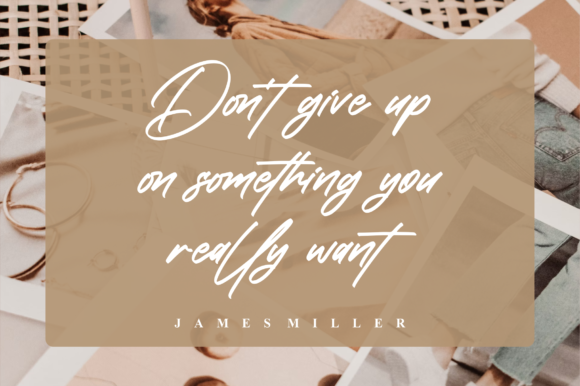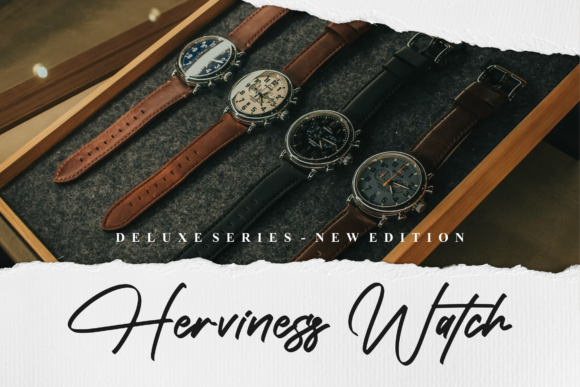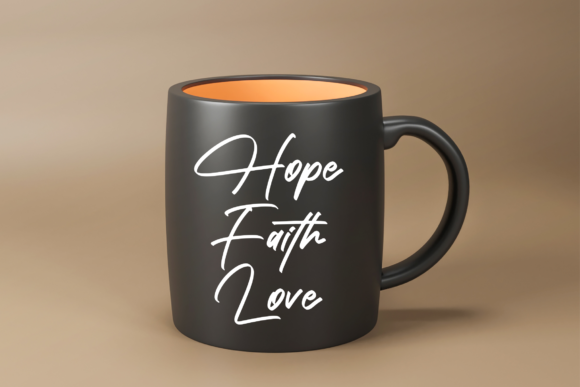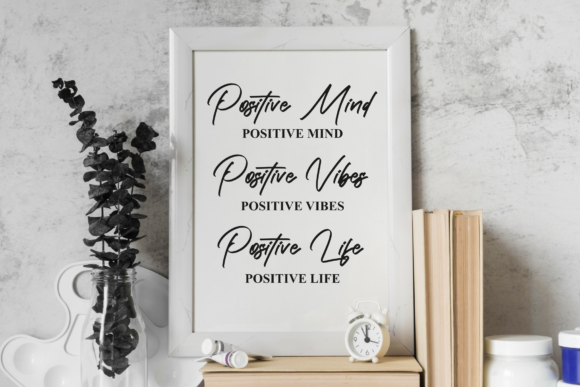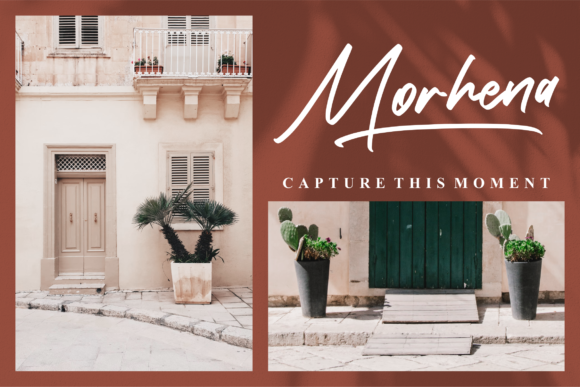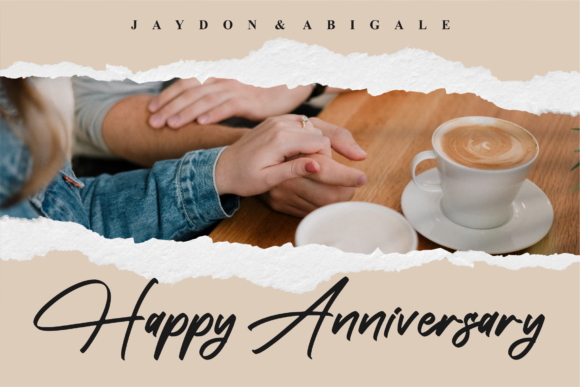
Introduction to Prechley Font Font
Fonts play a crucial role in design, and the Prechley Font font is a typeface that brings both character and versatility to any project. Whether you’re working on a branding project, a website, or a print design, the Prechley Font font offers a unique style that can elevate your work.
Prechley is a stylish and fashionable script font.
It is suitable for any projects such as: logos, branding projects, homeware designs, product packaging, mugs, quotes, posters, shopping bags, and various other lovely projects that need a beautiful script taste .
The Prechley Font font is more than just a typeface – it’s a design tool that helps you communicate your message with style and clarity. Its unique character set and versatile design make it suitable for a wide range of applications, from elegant invitations to bold headlines.
With its carefully crafted letterforms and balanced proportions, the Prechley Font font ensures readability and visual appeal across all mediums.
The Prechley Font font stands out with its unique design, exceptional readability, and versatility across various design applications.